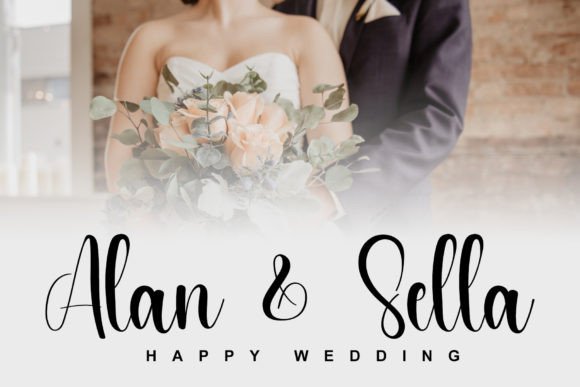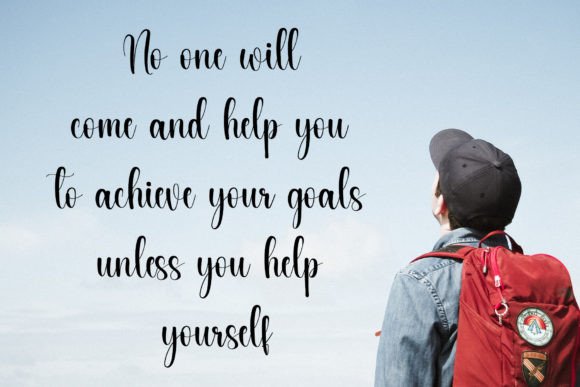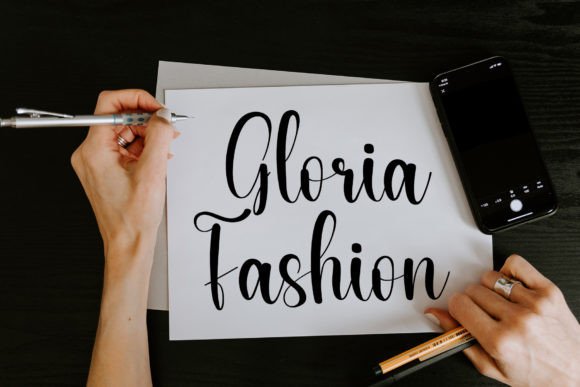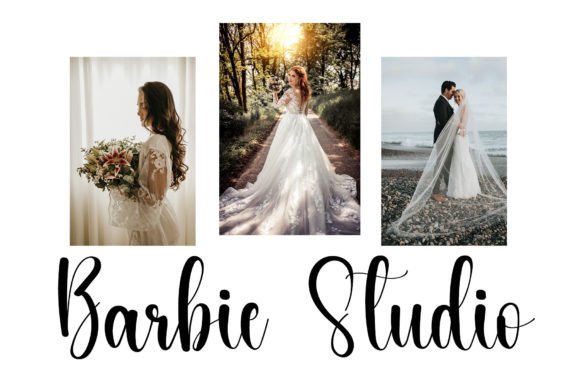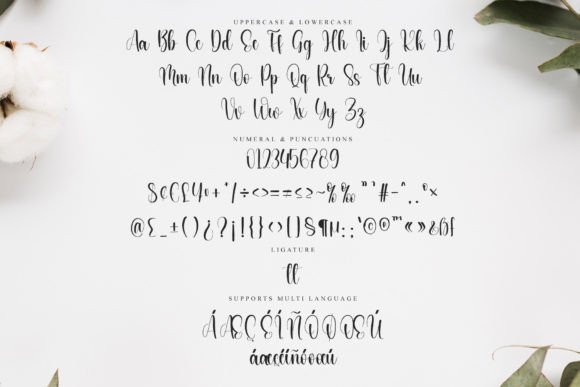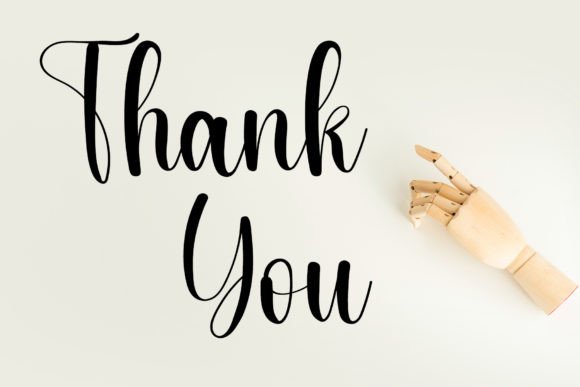
Introducing Delicates Font: A Timeless Handwritten Masterpiece
Are you a designer or crafter looking for a font that can add a touch of elegance and sophistication to your creations? Look no further than Delicates Font, a lovely and timeless handwritten font that is sure to make your designs come alive. In this article, we’ll take a closer look at Delicates Font and explore its features, benefits, and uses.
What is Delicates Font?
Delicates Font is a beautiful handwritten font that is perfect for creating eye-catching logos, branding, and quotes. Every letter has a unique and beautiful touch, which gives the font a distinctive and charming feel. The font is designed to be versatile and can be used for a wide range of design projects, from digital graphics to print materials.
Features of Delicates Font
So, what makes Delicates Font so special? Here are just a few of its key features:
- Handwritten with love: Delicates Font is a handwritten font, which means that every letter is unique and has a personal touch.
- Timeless design: The font has a classic, timeless design that will never go out of style.
- Unique and beautiful touch: Every letter has a distinctive and beautiful touch that sets it apart from other fonts.
- Versatile: Delicates Font can be used for a wide range of design projects, from logos and branding to quotes and digital graphics.
Benefits of Using Delicates Font
So, why should you choose Delicates Font for your design projects? Here are just a few benefits of using this amazing font:
- Adds elegance and sophistication: Delicates Font can add a touch of elegance and sophistication to your designs, making them stand out from the crowd.
- Perfect for branding: The font is ideal for creating eye-catching logos and branding materials that will help you establish a strong brand identity.
- Easy to read: Despite its elegant and cursive design, Delicates Font is easy to read, making it perfect for use in quotes and other text-based designs.
- Supports multiple languages: The font supports multiple languages, making it a great choice for designers who work with international clients.
Uses of Delicates Font
Delicates Font is a versatile font that can be used for a wide range of design projects, including:
- Logos and branding: Use Delicates Font to create eye-catching logos and branding materials that will help you establish a strong brand identity.
- Quotes and typography: The font is perfect for creating beautiful quotes and typography-based designs.
- Digital graphics: Delicates Font can be used to create stunning digital graphics, such as social media graphics, blog headers, and more.
- Print materials: The font can also be used for print materials, such as brochures, flyers, and business cards.
In conclusion, Delicates Font is a beautiful and timeless handwritten font that is perfect for designers and crafters who want to add a touch of elegance and sophistication to their designs. With its unique and beautiful touch, versatile design, and wide range of uses, Delicates Font is a great choice for any design project. Whether you’re creating logos and branding materials, quotes and typography-based designs, or digital graphics and print materials, Delicates Font is sure to make your designs come alive!